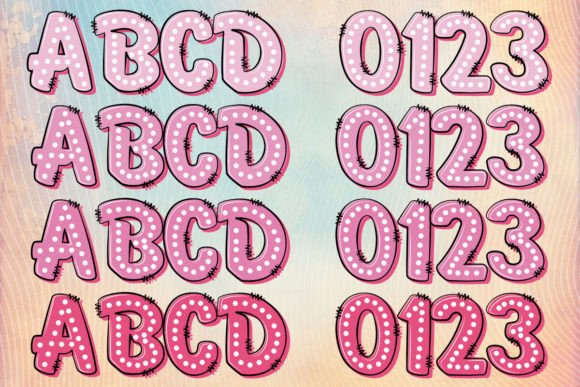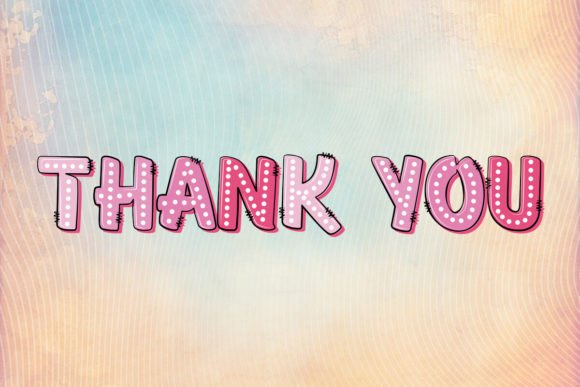
Breast Cancer Font
Embrace the nostalgia of bygone days with our retro vintage-inspired Breast Cancer Font. Expertly crafted in an alluring shade of pink, this typeface is more than just a font – it’s a statement. Its use is a stride towards promoting breast cancer awareness, allowing each interaction to surface into an open dialogue about this significant topic. Whether you’re crafting a project, designing an invitation, or developing a branding campaign, this pink-hued font lends a powerful voice. Utilizing the Breast Cancer Font not only enhances visual appeal, but it also symbolizes your standing commitment towards a cause that affects millions worldwide. Advocacy meets aesthetics with our Breast Cancer Font.The black version of this font is compatible with Cricut Design Space and other cutting machines.Note! The color version of this font is only compatible with certain design programs incl. PhotoShop, Illustrator, Silhouette, and Inkscape. The OTF and/or TTF files of the color version are not compatible with Cricut. For more information on how to use this type of font please check our Ultimate Font Guide .